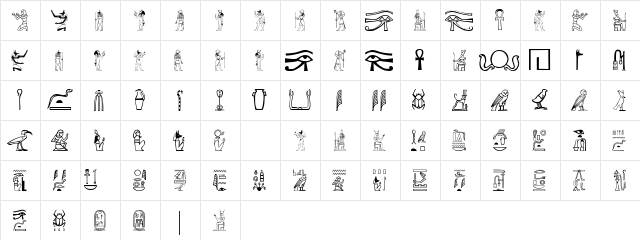
Greywolf Glyphs Regular
Design Context for Greywolf Glyphs Typeface
Greywolf Glyphs is a composed and adaptable typeface that performs quietly and consistently across a wide range of design contexts.